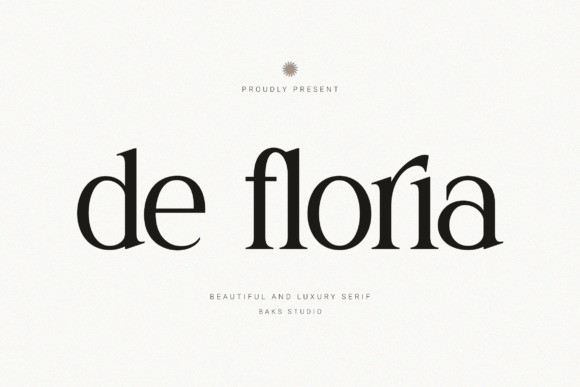
De Floria Font
De Floria Font a beautifully crafted serif font that perfectly balances timeless vintage charm with a premium, modern aesthetic. Designed specifically to elevate high end commercial projects, this font exudes sophistication and elegance.
De Floria features smooth curves and distinct serif details, making it highly versatile while maintaining a strong, luxurious character. Whether you are building a new brand from scratch or adding the final touch to a high class product, De Floria delivers an effortlessly premium feel.